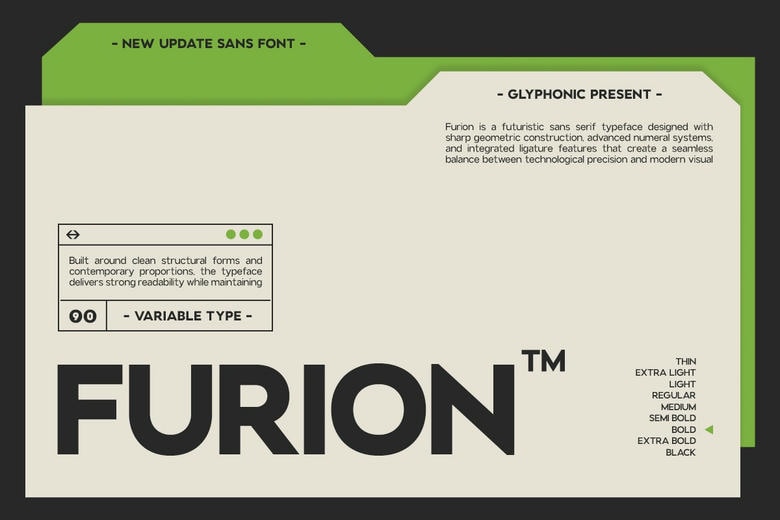
Furion Font
Furion is a modern sans-serif typeface inspired by futuristic style, precise engineering, and today’s digital design. With clean shapes, sharp angles, and a balanced look, it is sleek and high-tech.
Furion is designed for brands that want to show innovation and a modern style. Its simple structure and futuristic look make it stand out, making it well-suited for tech, gaming, automotive, architecture, UI/UX, editorial design, digital products, and high-end marketing.
Furion Sans Serif Font